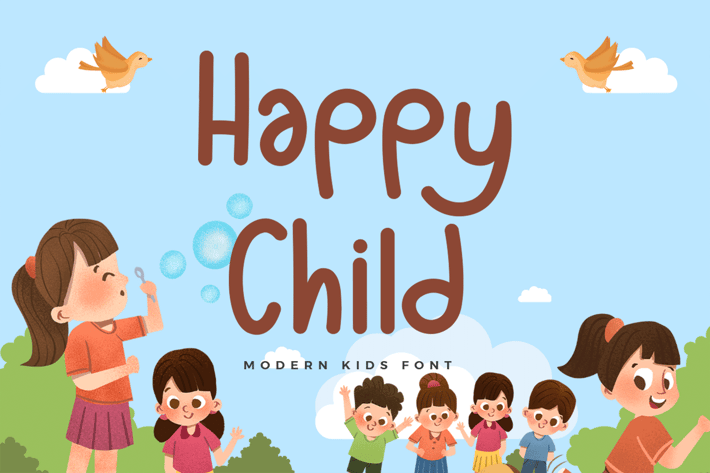
Happy Child - Modern Sans Kids Font
Introducing "Happy Child," a modern sans kids font that brings joyful simplicity and endless fun to your design projects. Perfect for children's book designers, educators, and creatives aiming to capture the imagination of young audiences, Happy Child offers a cheerful and approachable typeface that radiates positivity.
Ideal for children's books, posters, educational materials, logos, and toy packaging, Happy Child’s playful and rounded characters provide a friendly and engaging aesthetic. Each letter is meticulously designed to be easily readable and visually appealing, ensuring your designs are both effective and delightful.
The "Happy Child" font includes a complete set of uppercase and lowercase letters, numbers, punctuation marks, and special characters. This versatility allows for seamless integration into various design projects, from vibrant posters to enchanting storybooks.
Add a touch of joy and creativity to your designs with Happy Child, the modern sans kids font that makes every project a delightful experience.
Introducing "Happy Child," a modern sans kids font that brings joyful simplicity and endless fun to your design projects. Perfect for children's book designers, educators, and creatives aiming to capture the imagination of young audiences, Happy Child offers a cheerful and approachable typeface that radiates positivity.
Ideal for children's books, posters, educational materials, logos, and toy packaging, Happy Child’s playful and rounded characters provide a friendly and engaging aesthetic. Each letter is meticulously designed to be easily readable and visually appealing, ensuring your designs are both effective and delightful.
The "Happy Child" font includes a complete set of uppercase and lowercase letters, numbers, punctuation marks, and special characters. This versatility allows for seamless integration into various design projects, from vibrant posters to enchanting storybooks.
Add a touch of joy and creativity to your designs with Happy Child, the modern sans kids font that makes every project a delightful experience.